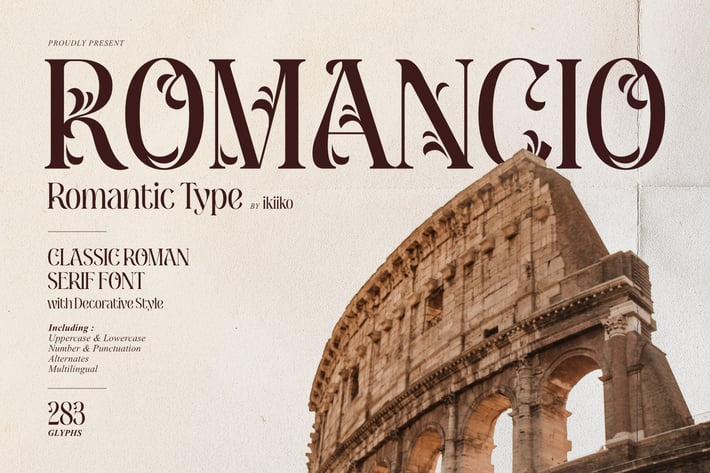
Romancio - Romantic Font
Proudly present Romancio - Romantic Font, created by ikiiko.
Romancio is a decorative serif typeface that inspired by the spirit of Roman design. This typeface is the perfect choice for projects that call for a touch of elegance and originality because of its bold and ornate style, which blends the appeal of ancient calligraphy with a modern twist.
Elegant flourishes and delicate curves abound in Romancio, which evokes the refinement of old Roman art. Each character is painstakingly designed to capture the elegance of classic Roman letterforms. Romancio's capital letters are particularly striking, with ornate swashes and embellishments that demand attention. Effective headlines and initial letters can be made using these capital letters.
This typeface is perfect for an elegant logo, branding, fashion brand, luxury brand, layout magazine, beauty product, packaging product, quotes, or simply as a stylish text overlay to any background image.
Alternates